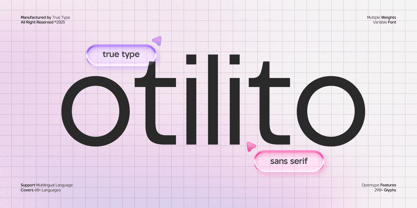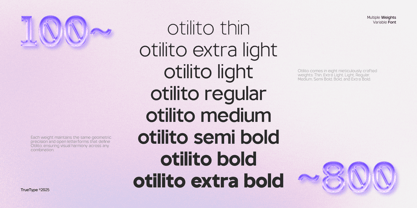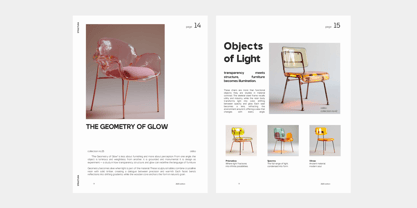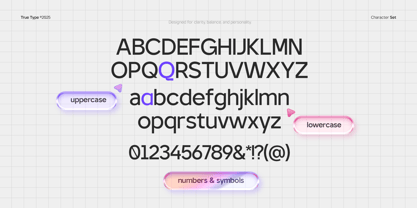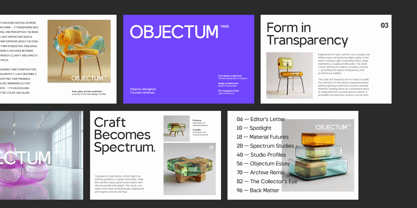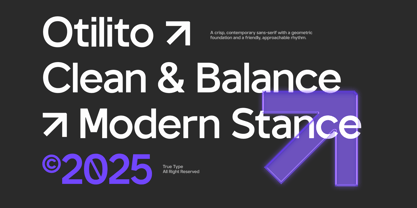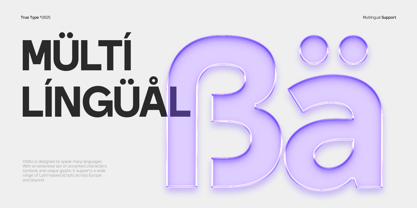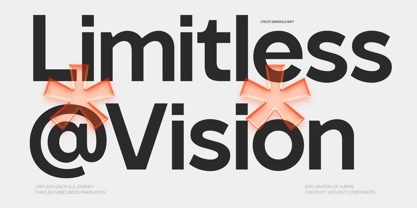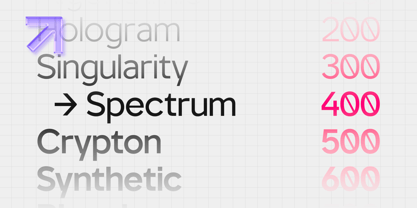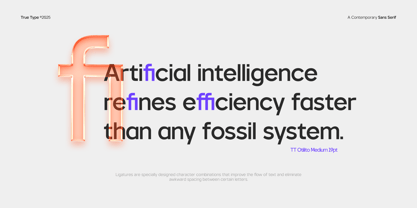
TRT Otilito
by True Type Lab
The TRT Otilito Font Family was designed by Yusilo Oktaprima Ardani and published by True Type Lab. TRT Otilito contains 8 styles and family package options.
TRT Otilito is a modern sans serif typeface with semi-grotesque characteristics and a unique personality. Designed to be clean and functional, yet distinctive, it blends geometric balance with subtle quirks that give it charm and flexibility
It’s a highly usable font family, offering multiple weights and styles to support diverse design needs — from branding and editorial work to digital interfaces and packaging Perfect for visual identities, headlines, logos, magazines, and interfaces, TRT Otilito delivers clarity without sacrificing character. It's a reliable tool for designers seeking modern aesthetics with a touch of originality.